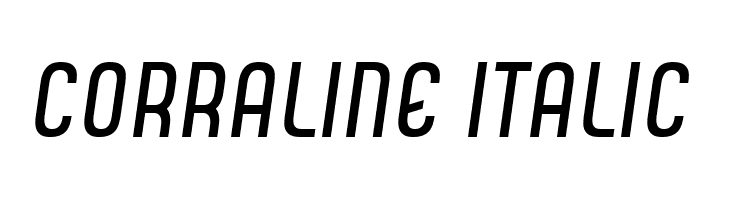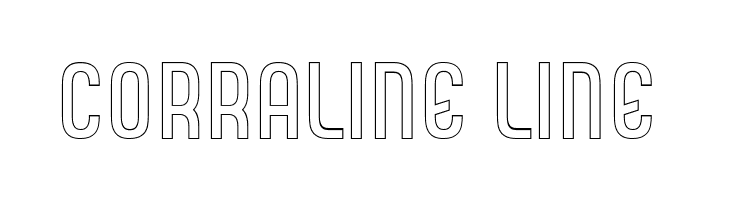
A modern, geometric font with clean lines and minimal contrast.
A modern, geometric outlined font with clean lines and a cohesive design.
A modern, italicized font with a sleek, low-contrast design.